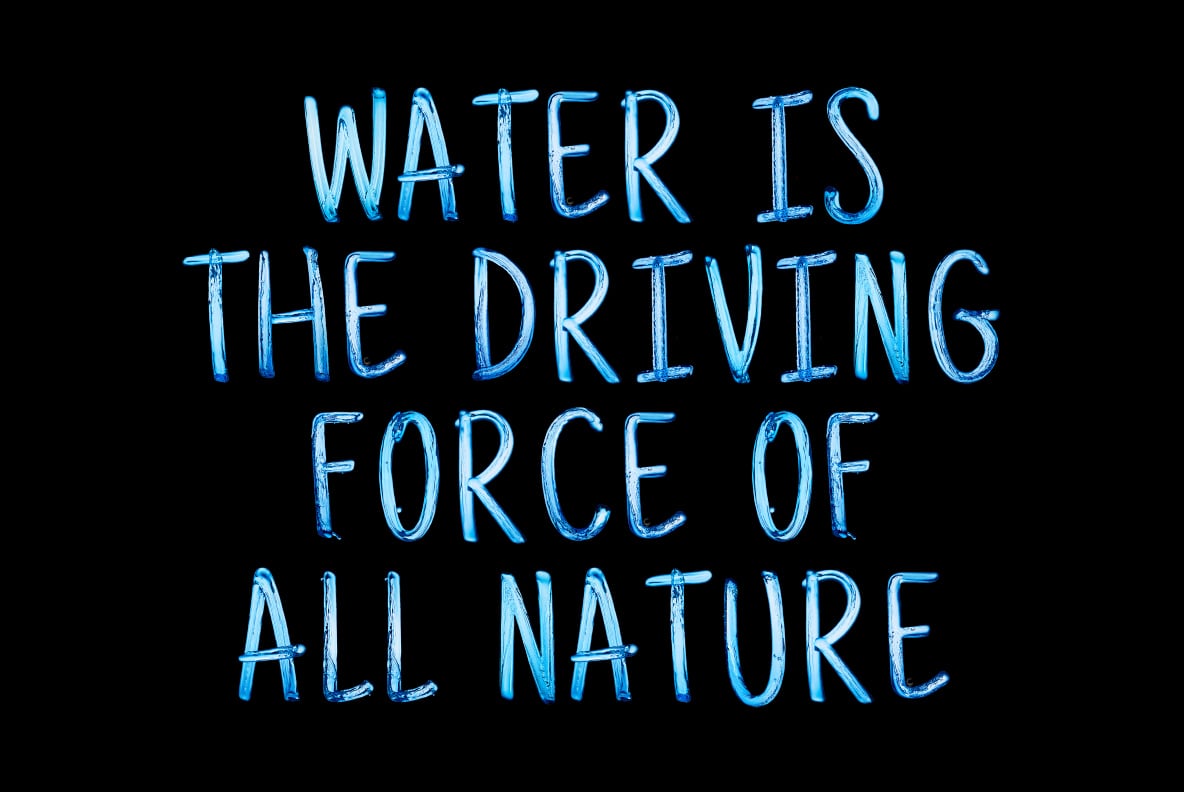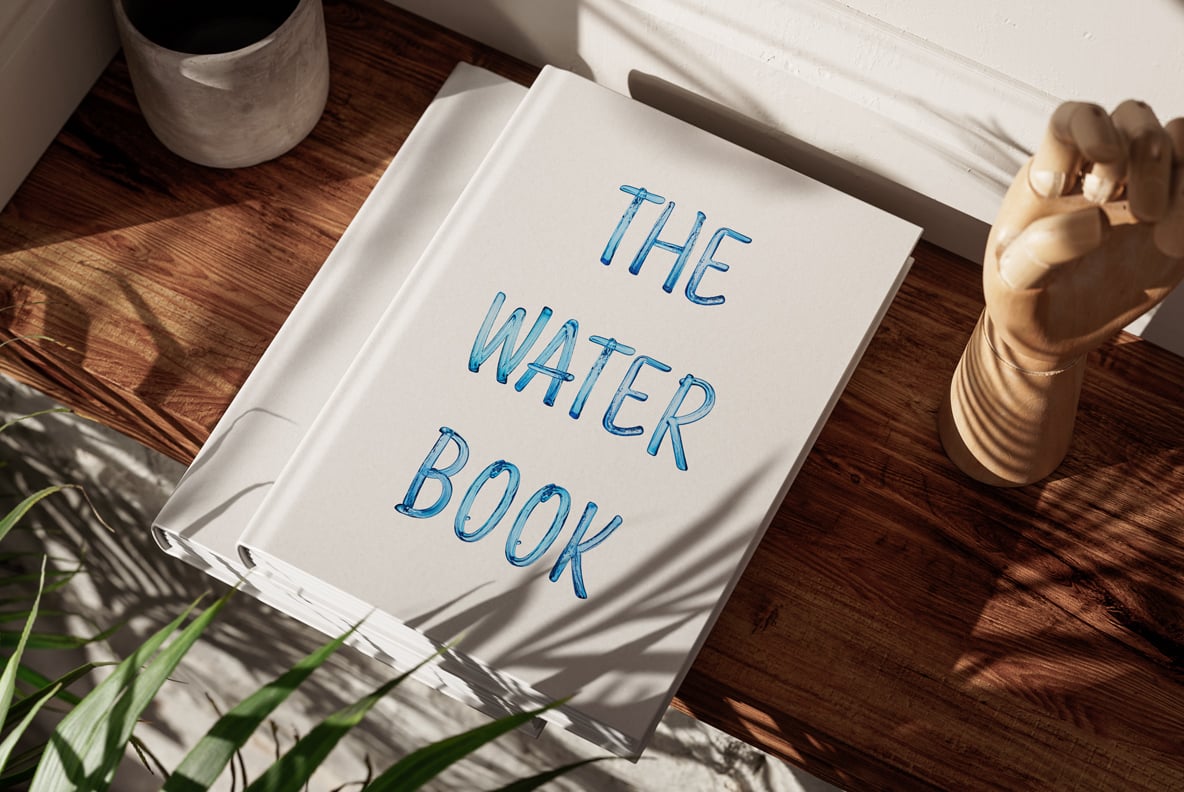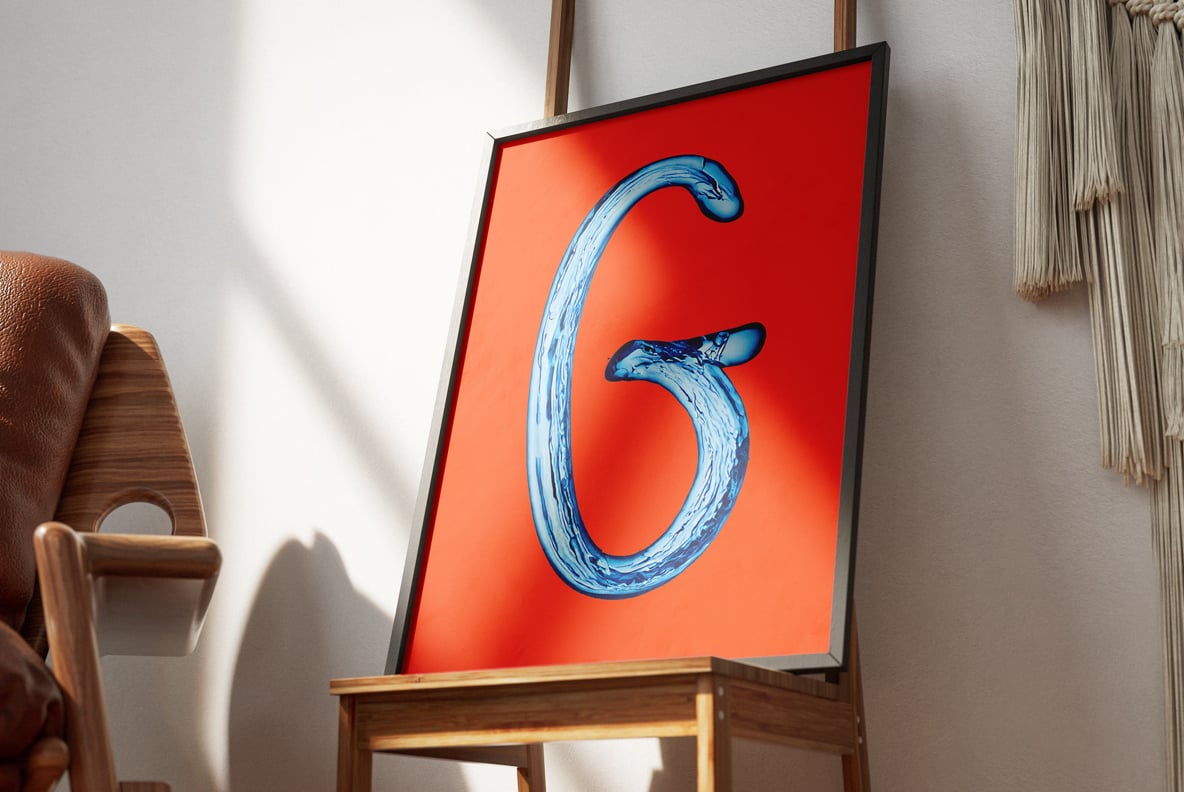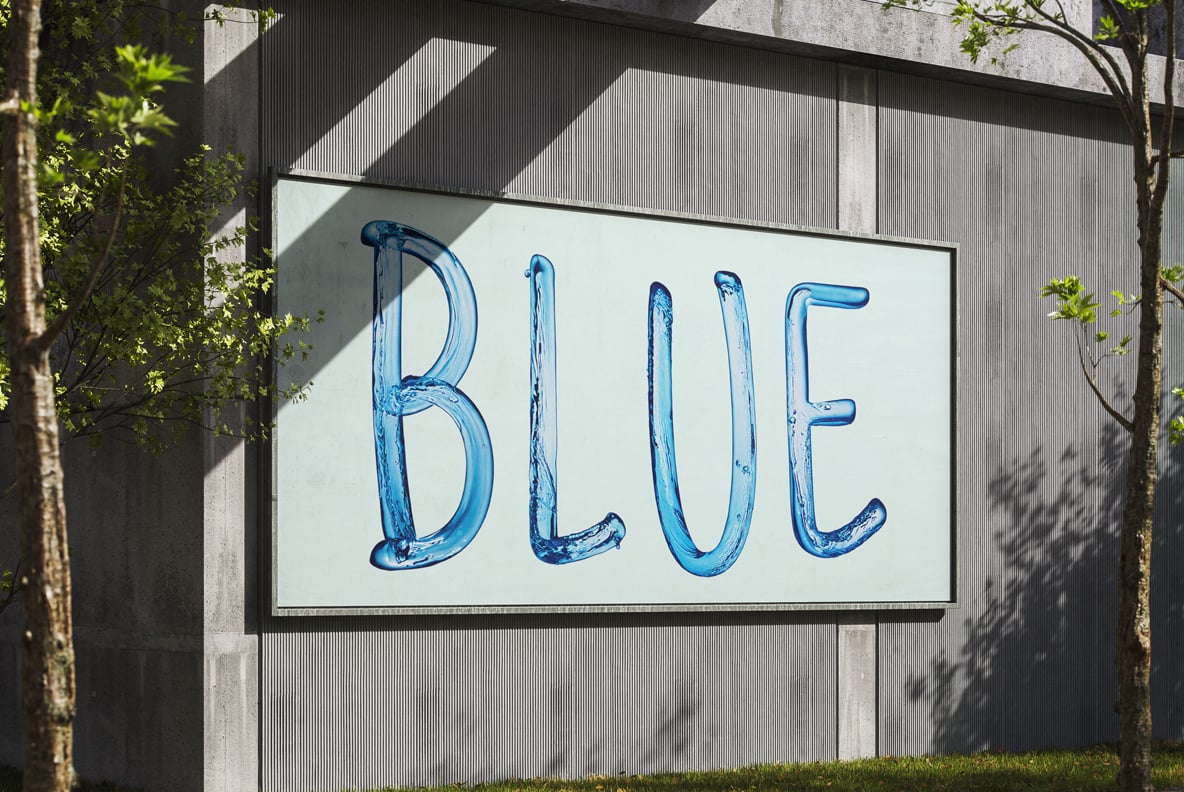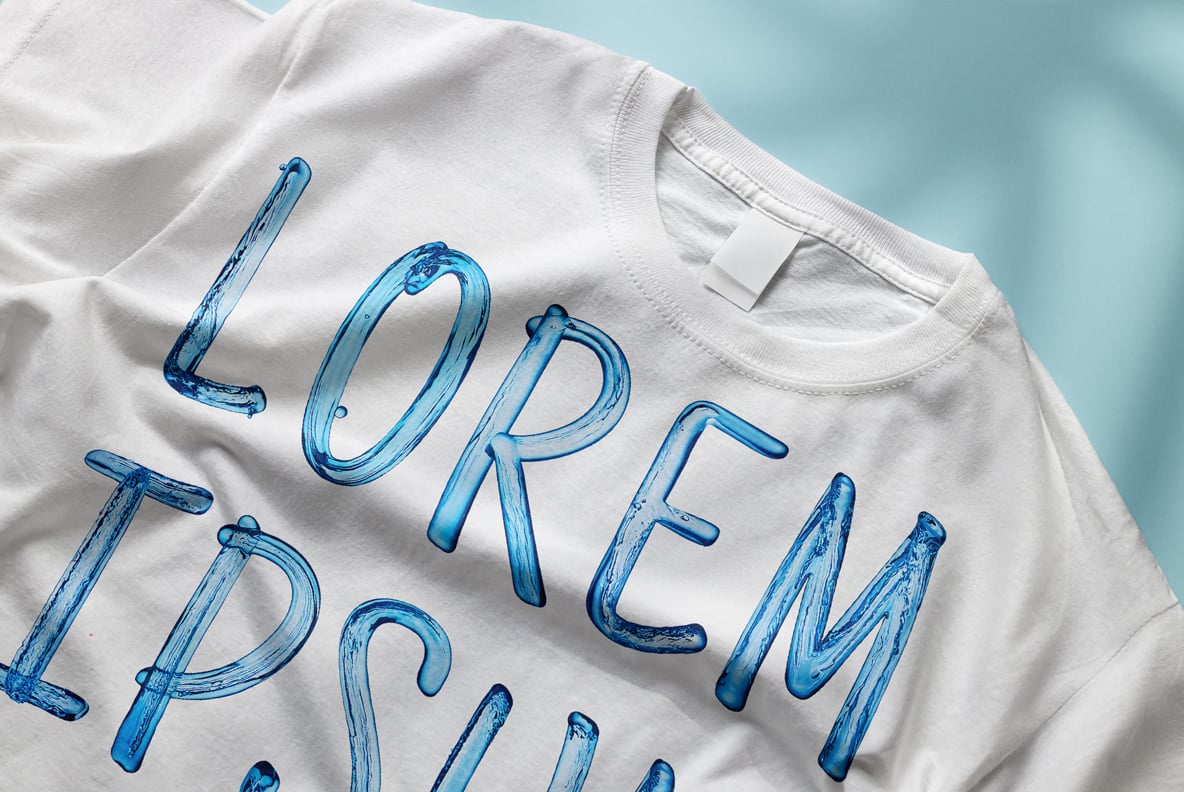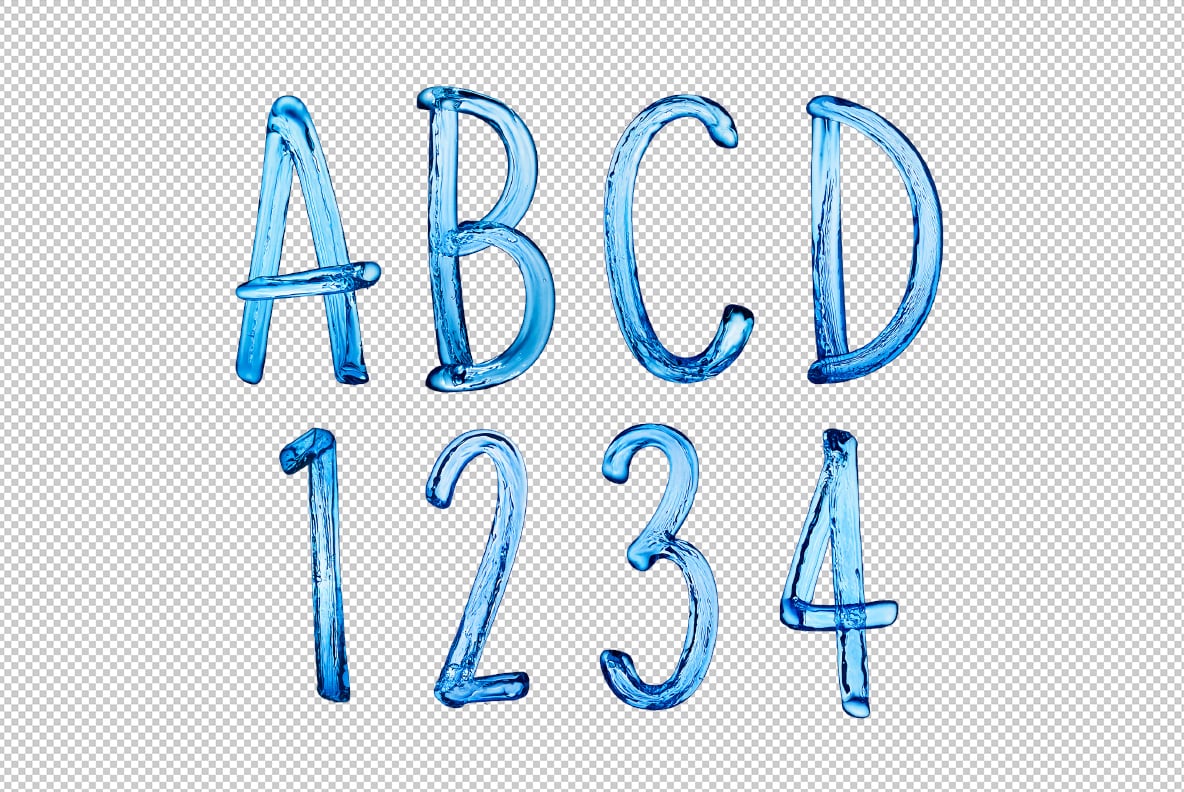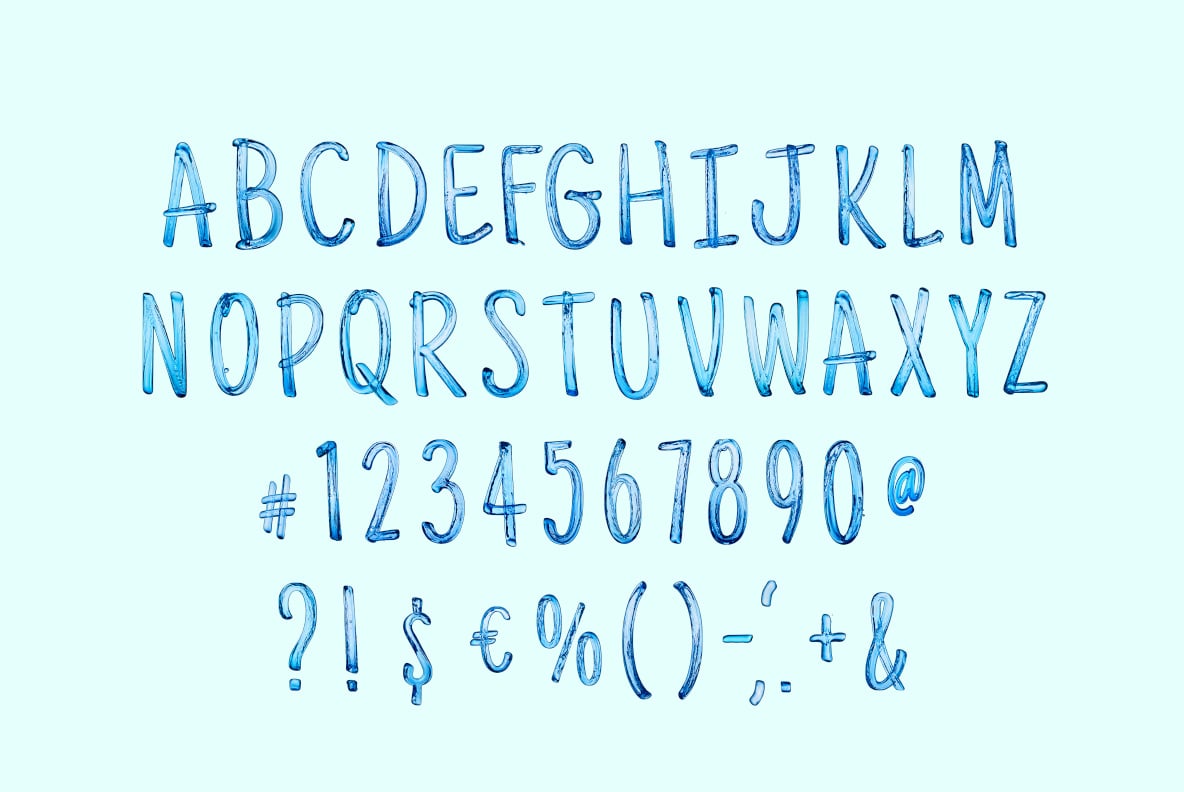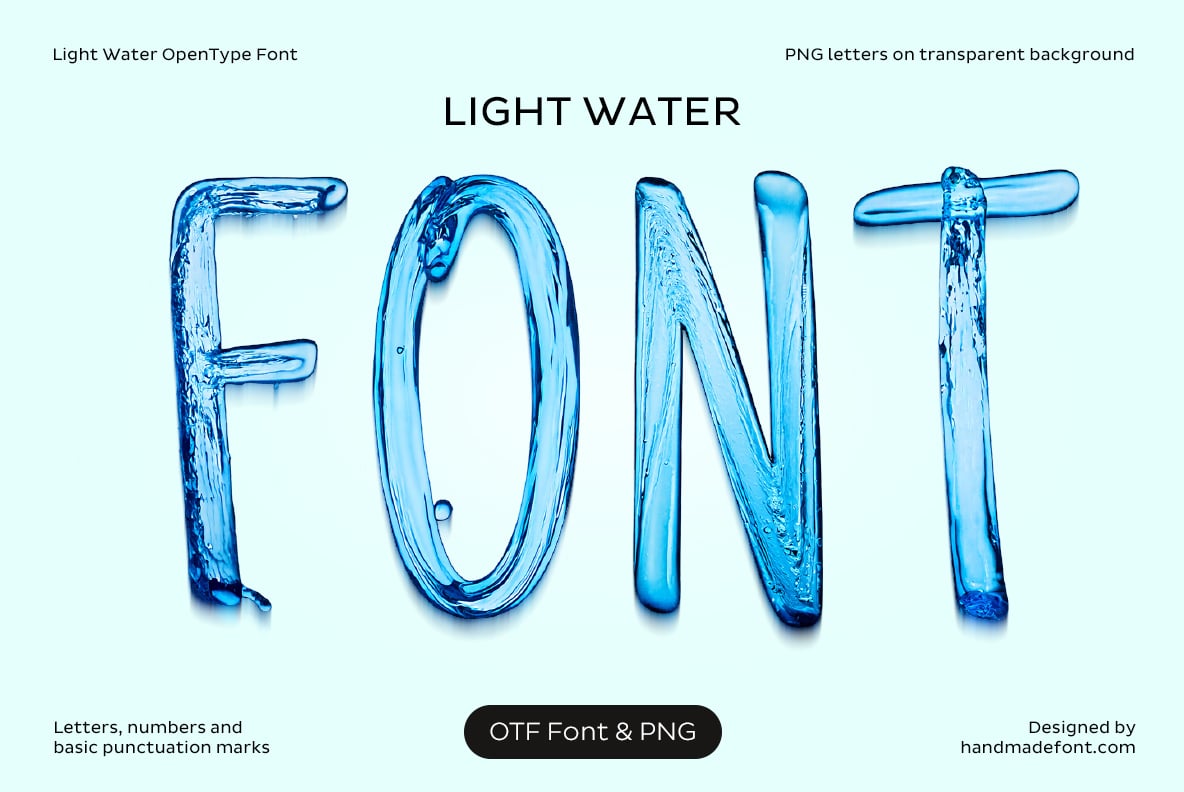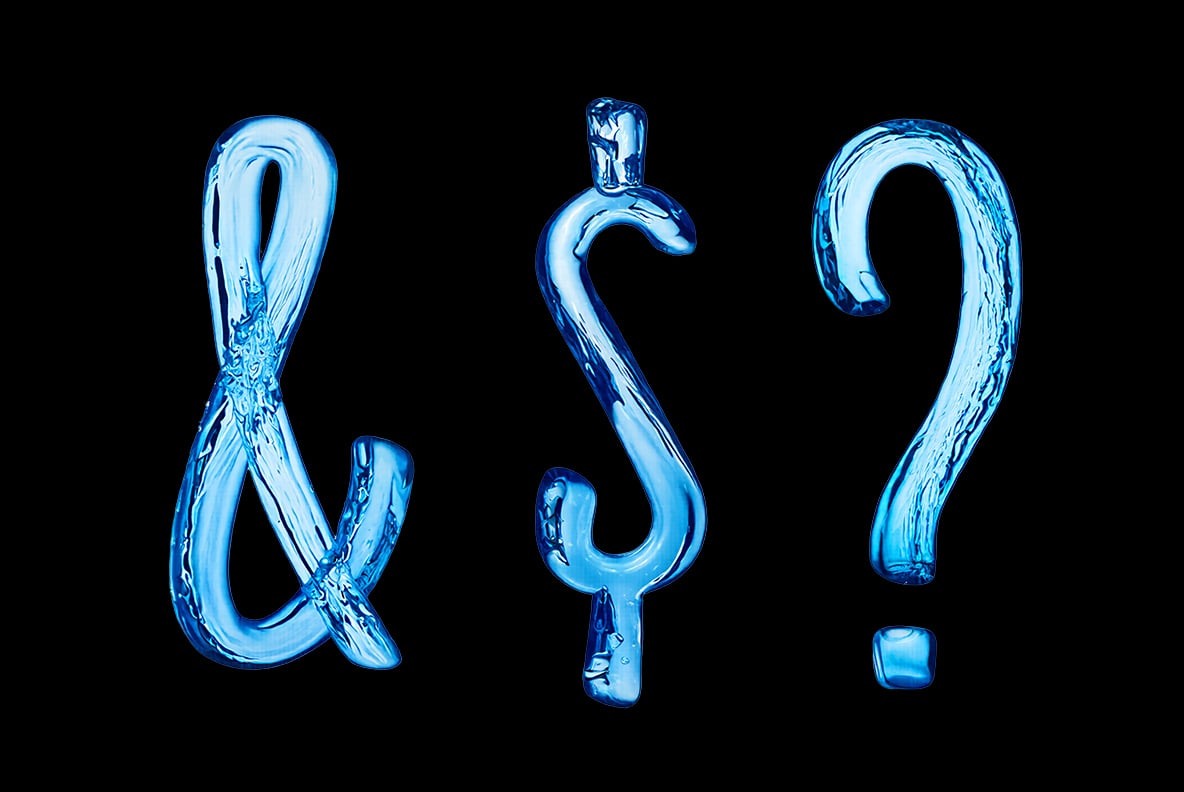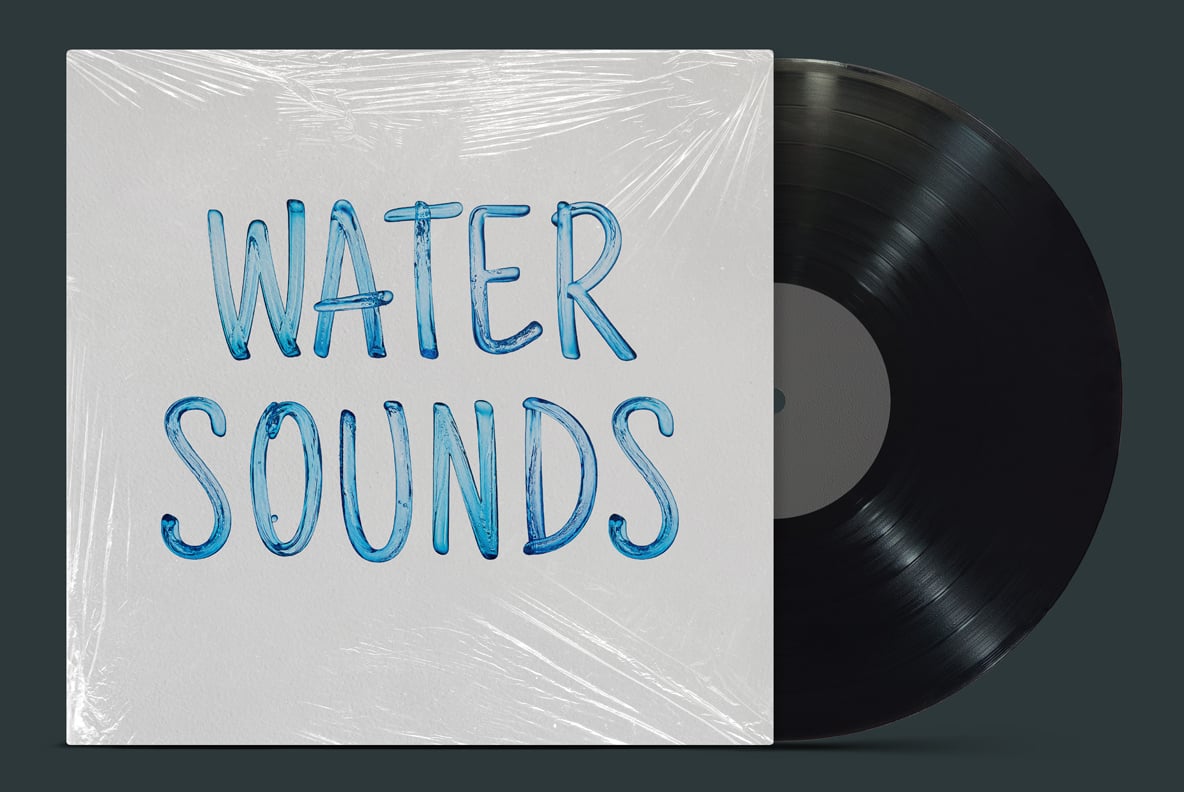
Light Water Font
Light Water Font is a refreshingly fluid typeface inspired by the elegance of water in motion. Each letter appears sculpted from pure, transparent blue liquid, capturing the lightness and clarity of a fresh splash. The shapes are smooth, dynamic, and slightly irregular—like water frozen mid-flow. Ideal for brands and designs that evoke purity, sustainability, or freshness, this font flows naturally across the page, blending elegance with playfulness. Whether you’re creating spa branding, eco-campaigns, or futuristic visuals, Light Water Font adds a wave of sophistication and calm. It’s not just a font—it’s hydration for your typography. Dive in!
A high definition OpenType Font. Contains uppercase characters, numerals and basic punctuation. (Draw height roughly 800 pixels). All letters and glyphs that comprises this font you can see on the preview.
Others : ! ? - . ' $ € % & #